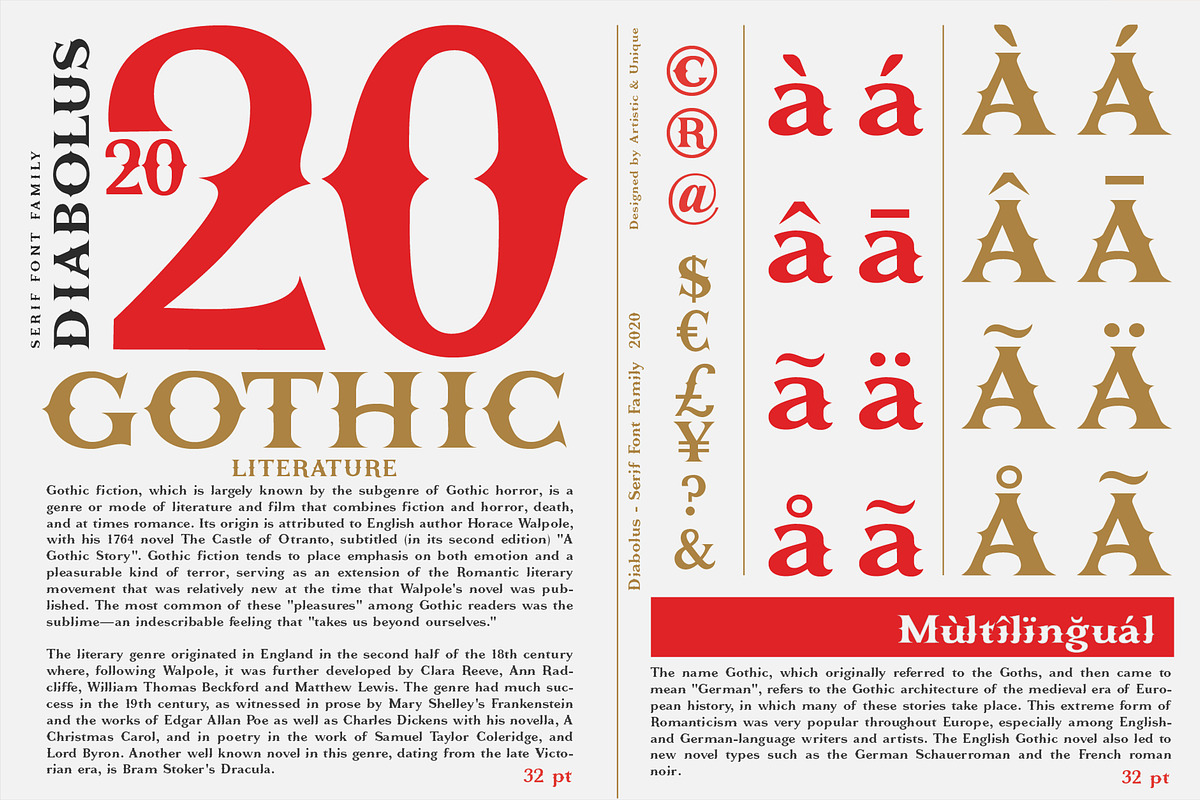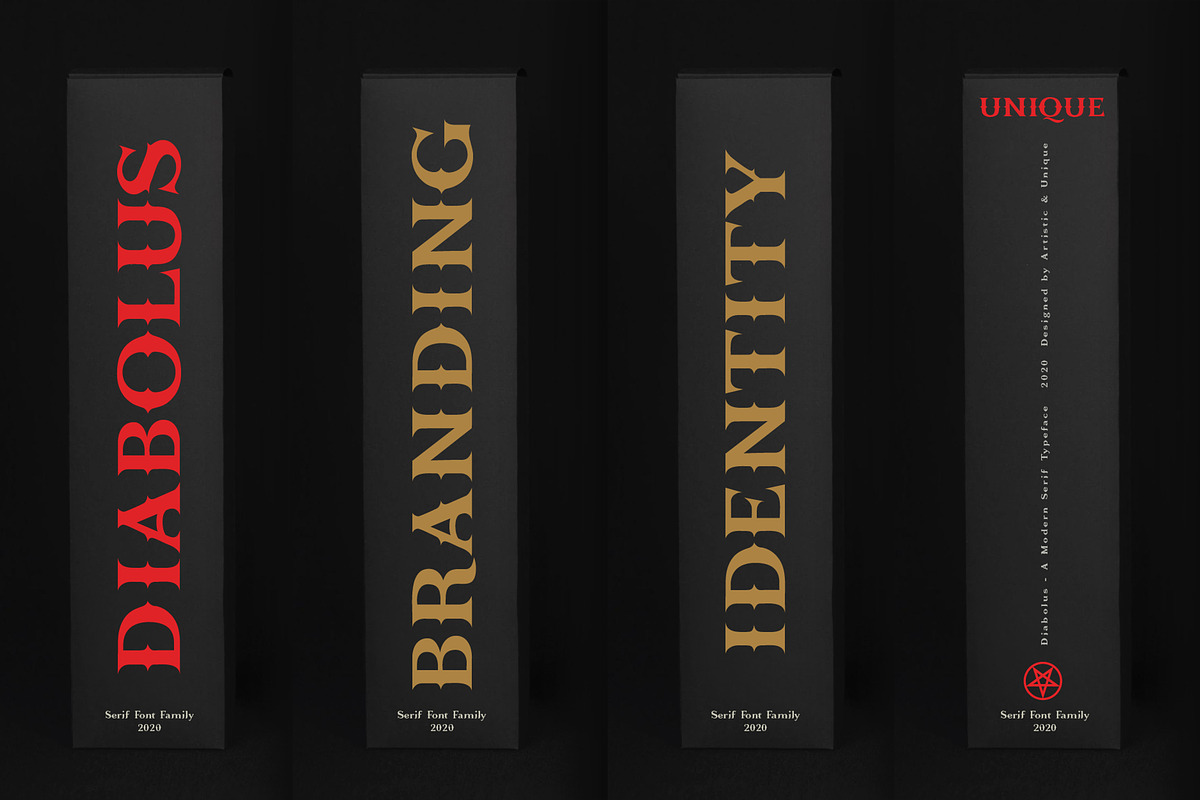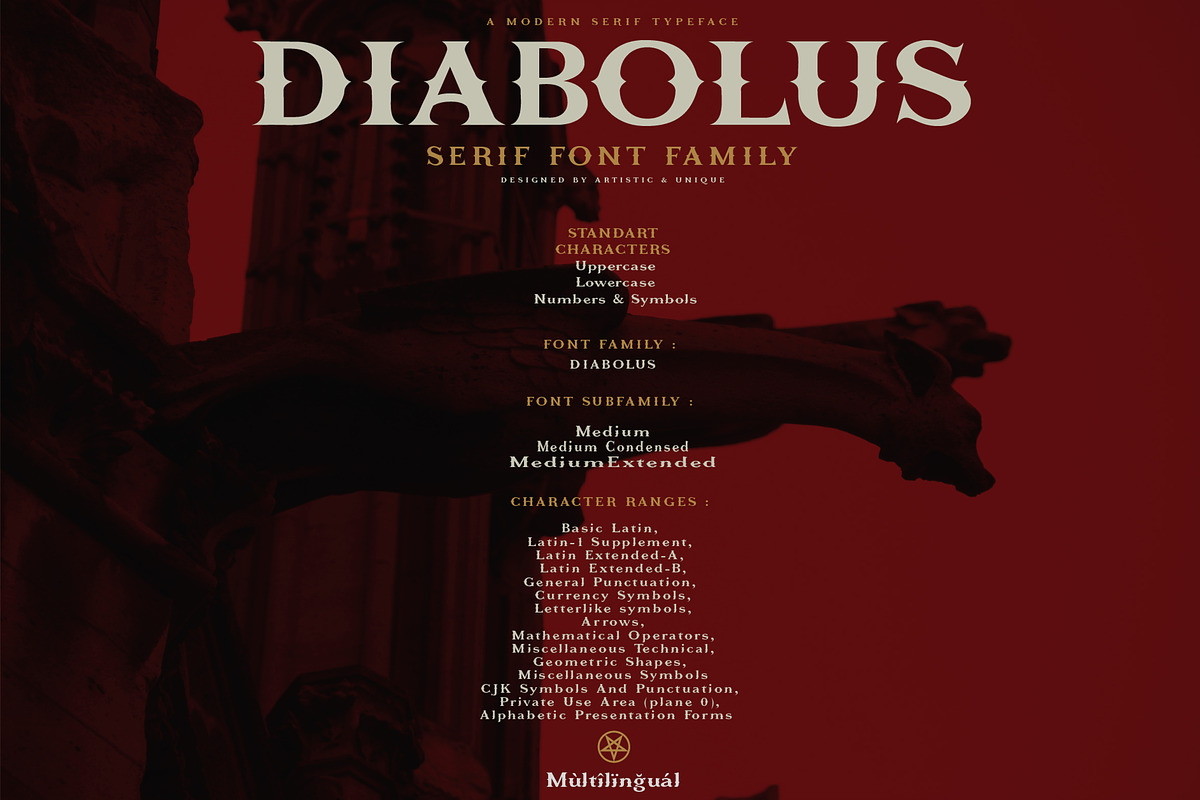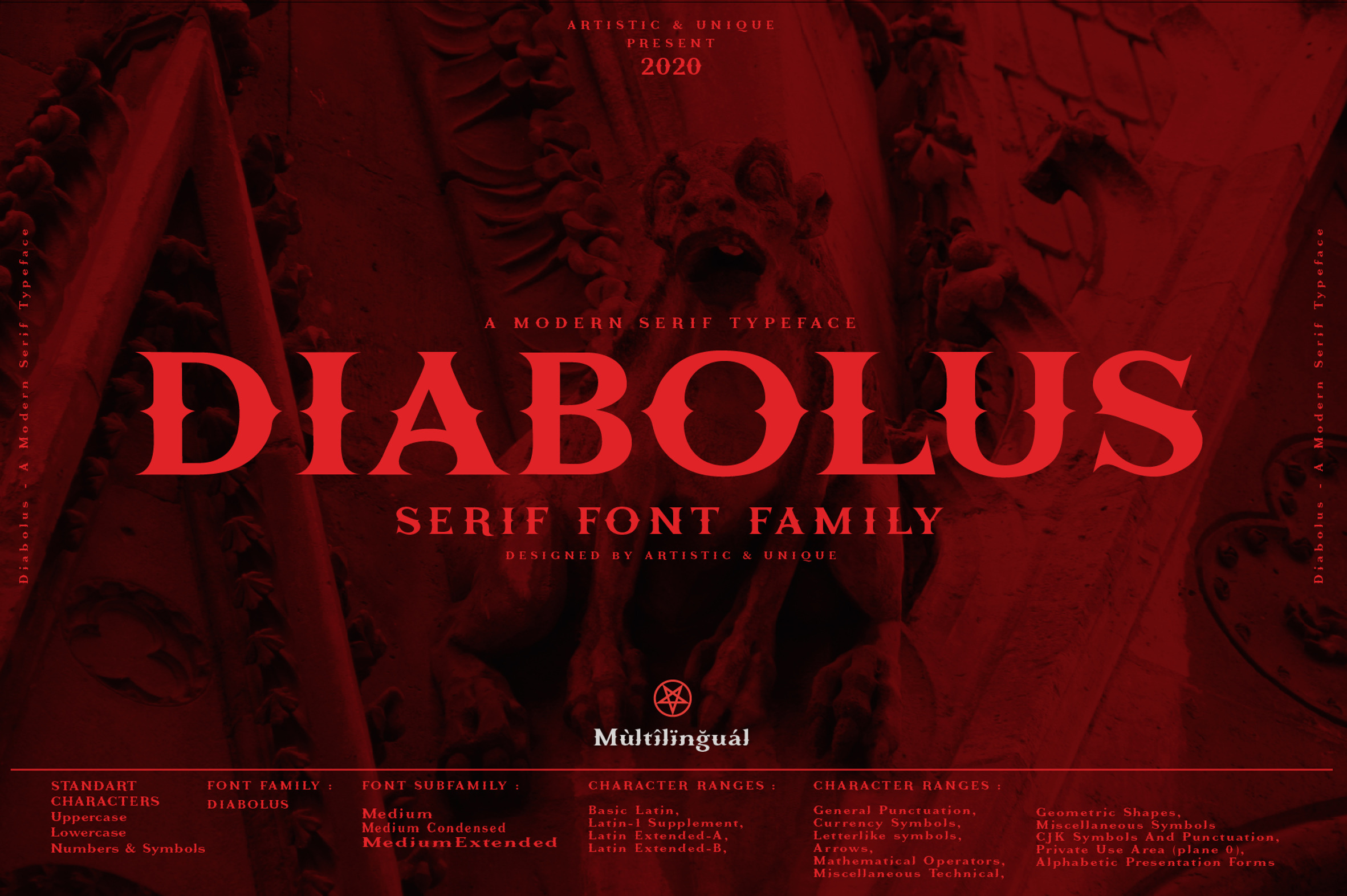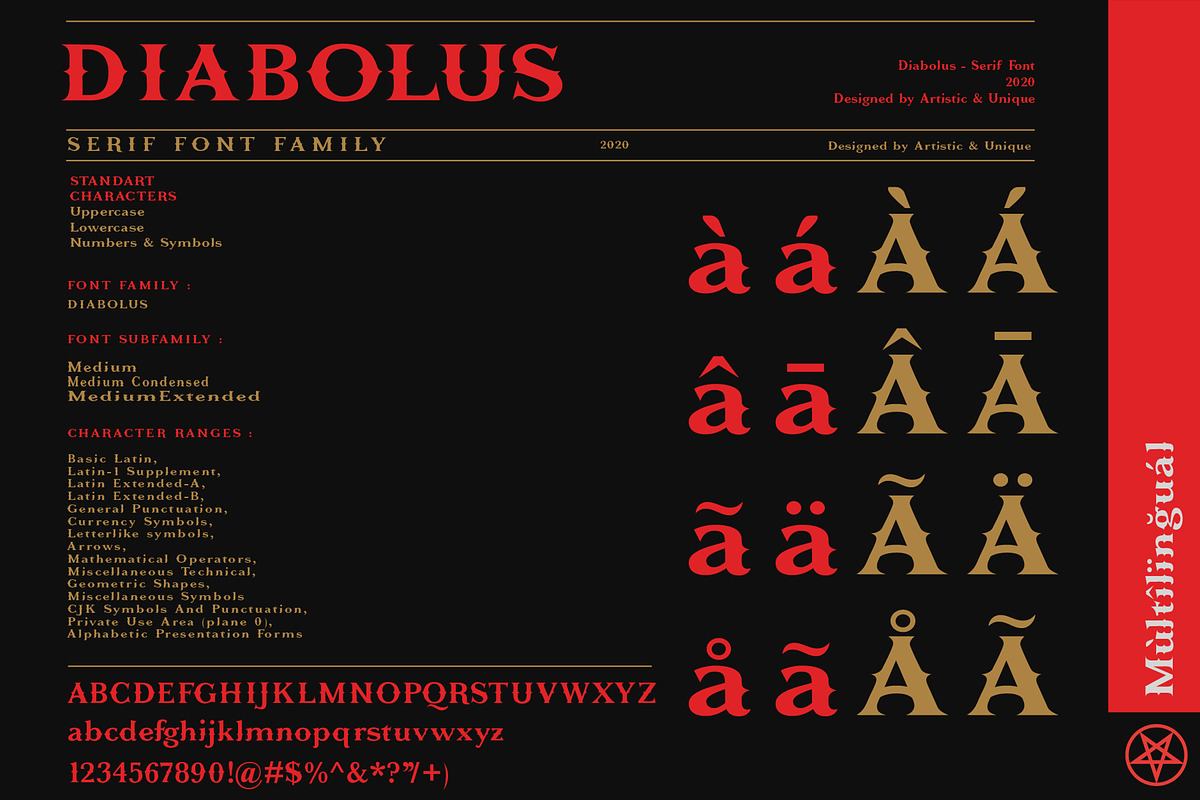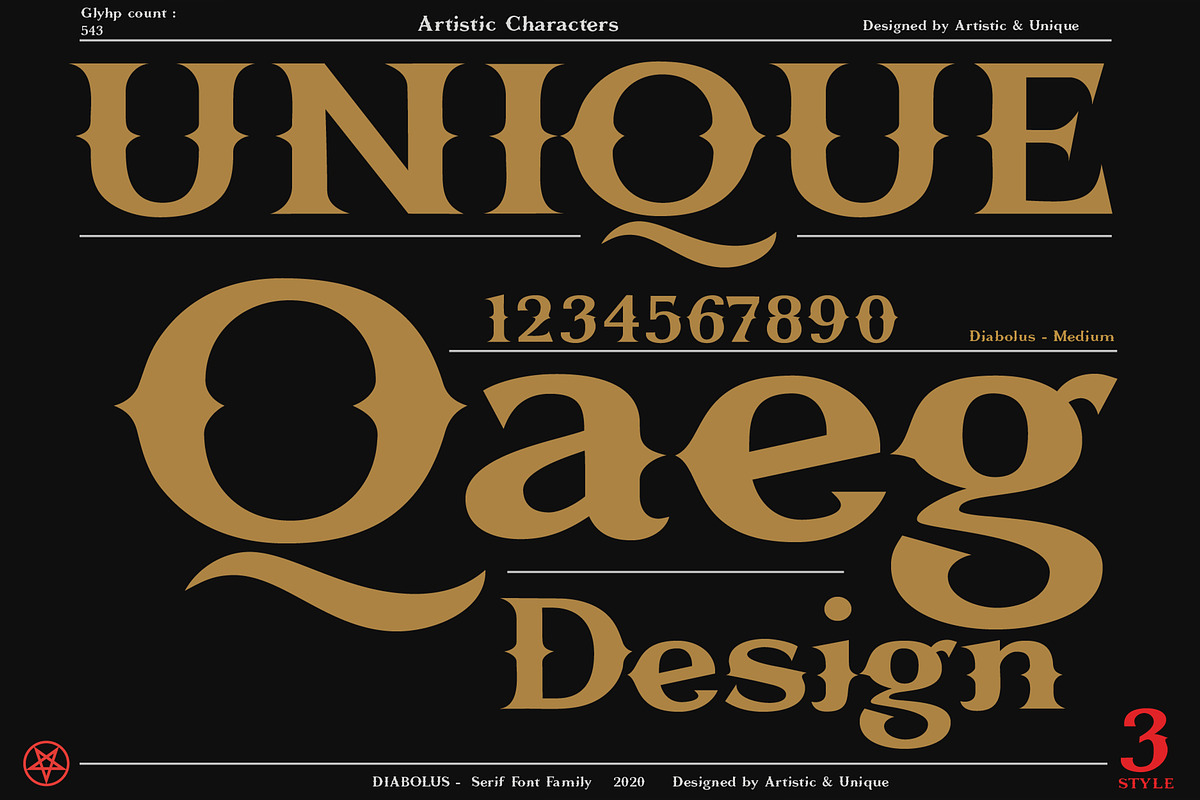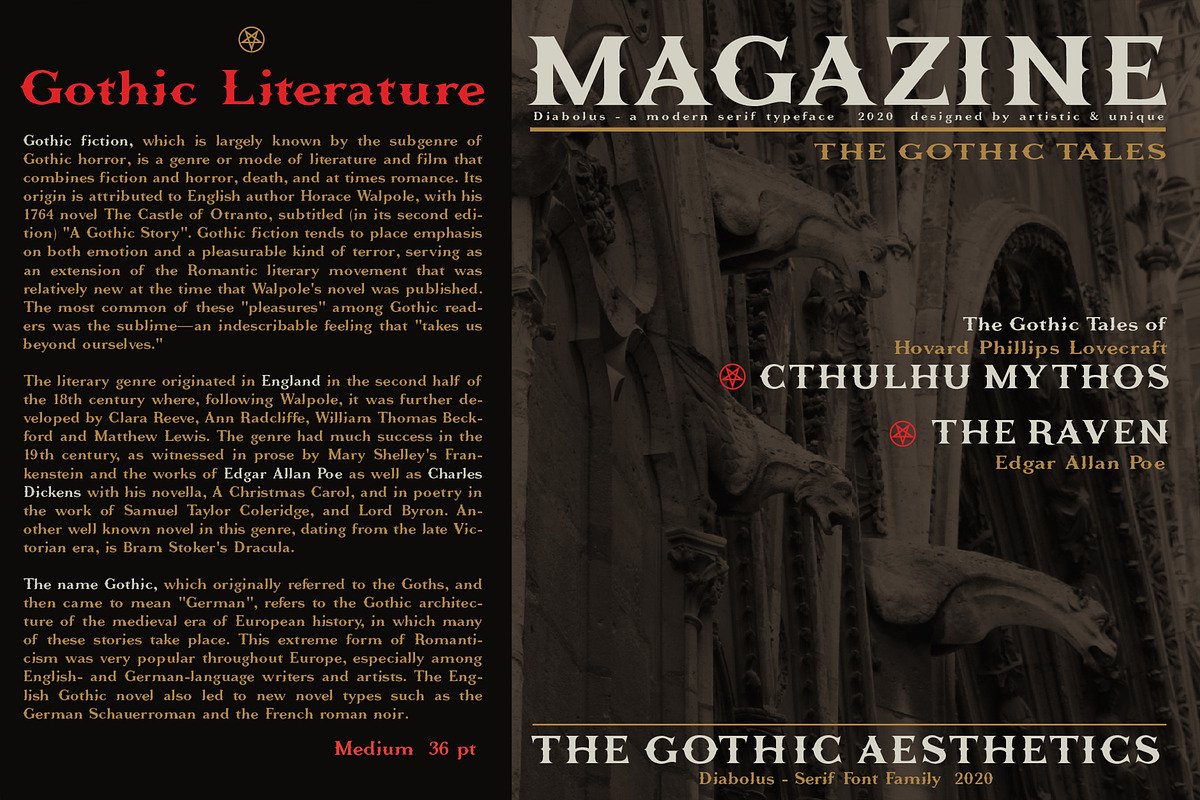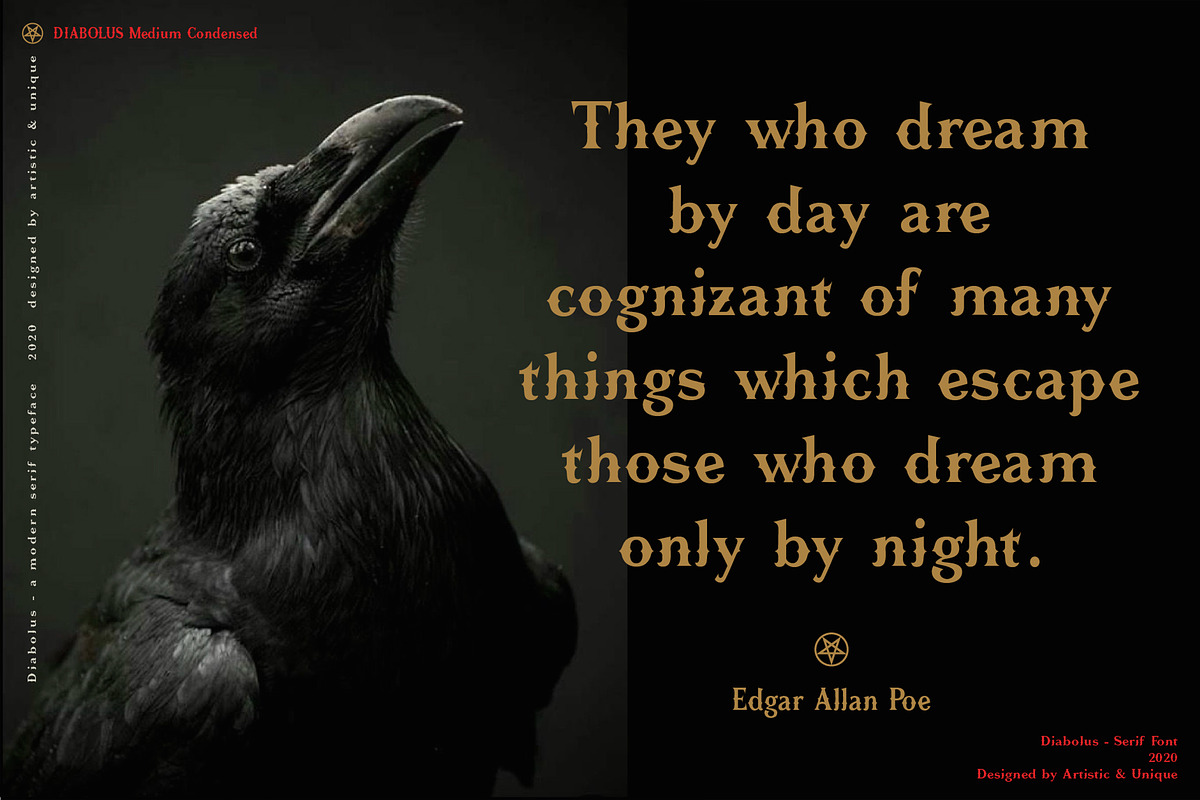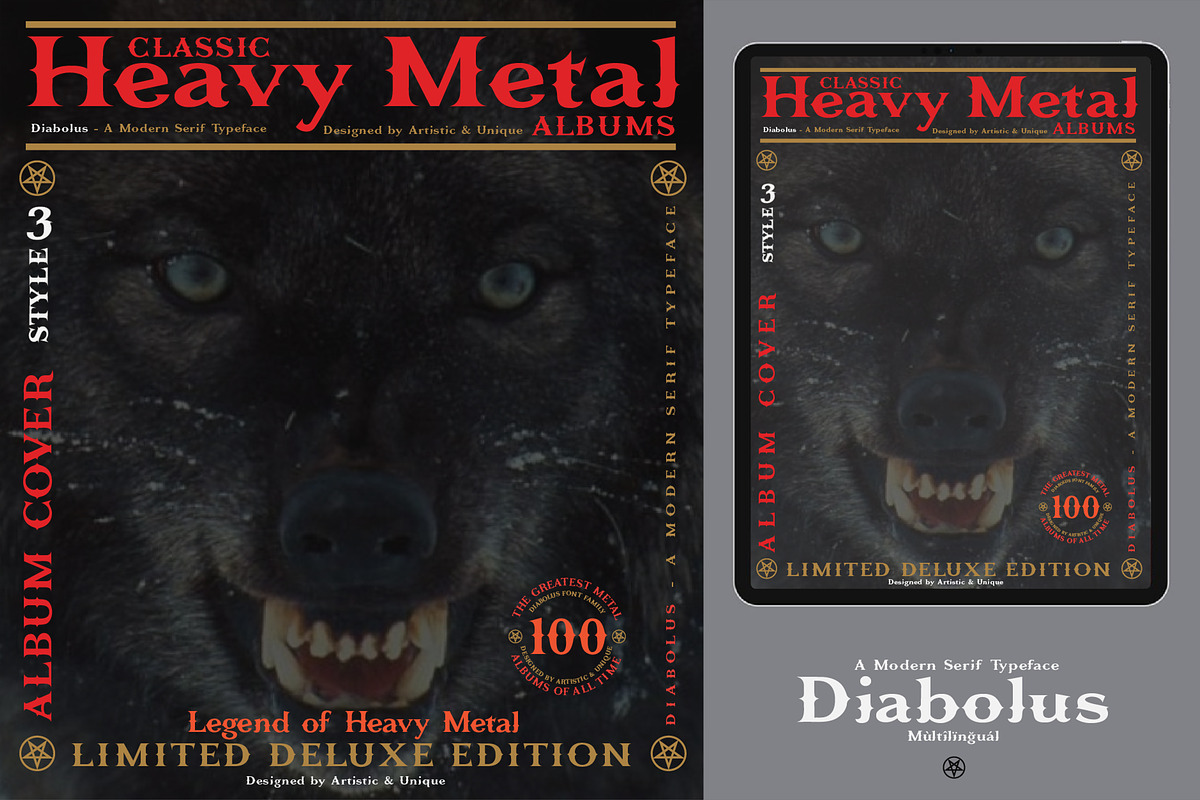
Diabolus - Serif Font Family
Diabolus - Serif Font Family - Multilingual - 3 Style (2020)
On the basis of Diabolus, it is a mix of the old-fashioned Gothic serif family. The old-style serif combination combines modern aesthetics with fantasy and Gothic serif fonts, making Diabolus a versatile family that can be used in many different design projects.
This font offers a wide variety of styles to help you discover the best mood for your projects, from body text to big headlines, from classic to modern and bold styles.
Well suited for books and magazines, magazine and album covers, editorial, headlines, websites, logos, invitations, branding, advertising, and more.
CHARACTER RANGES :
- Basic Latin,
FONT SUBFAMILY :
- Medium
- Medium Condensed
Medium Extended
- Uppercase typeface
- Lowercase typeface